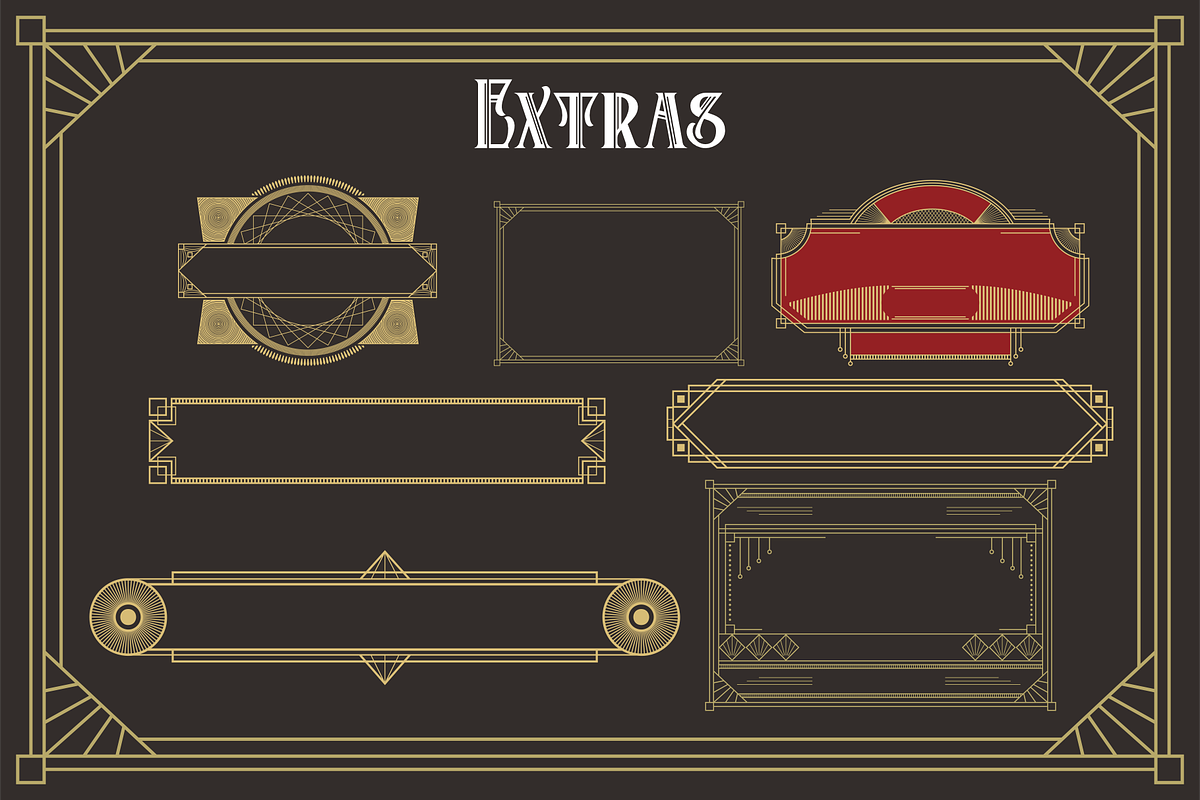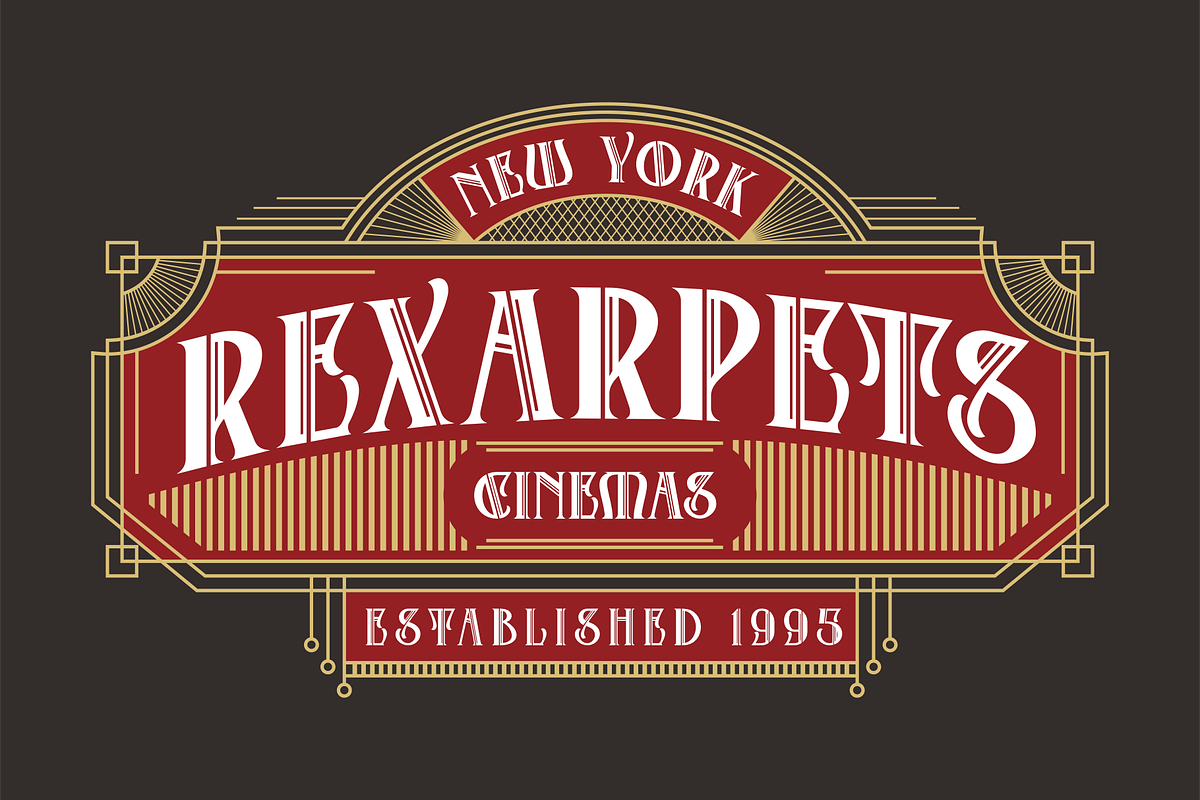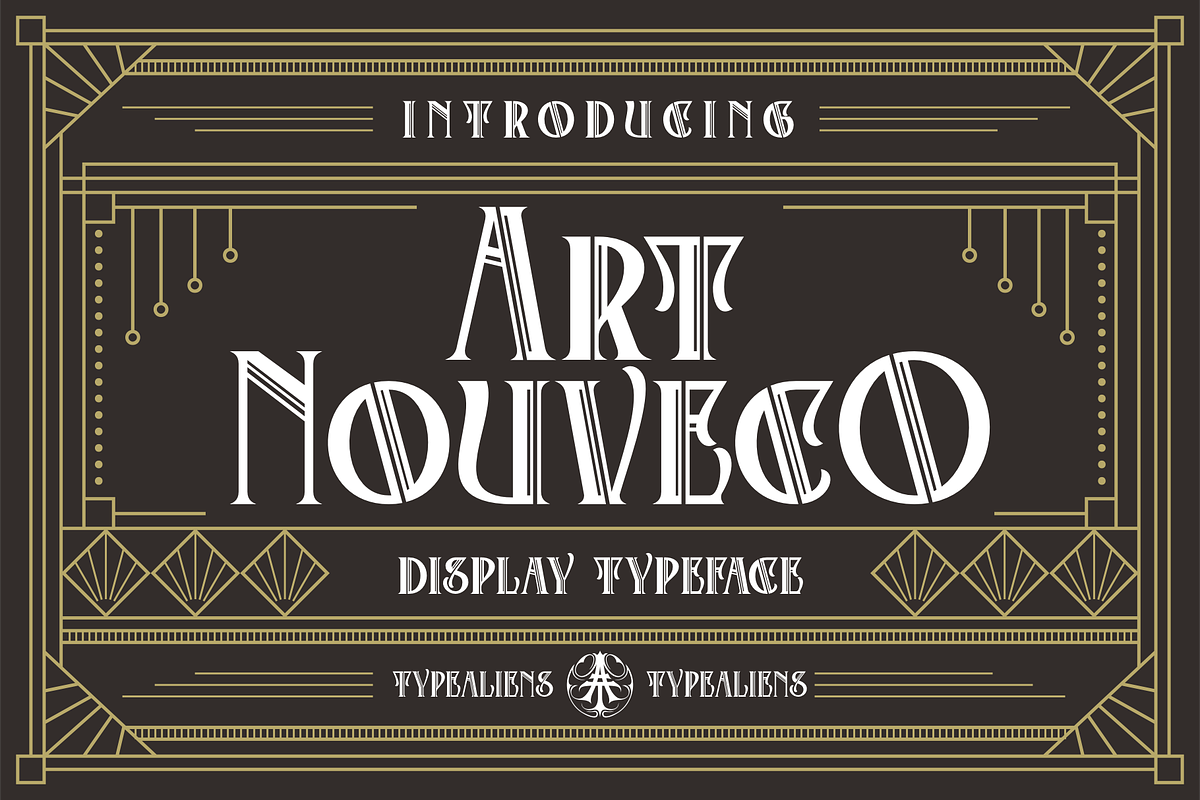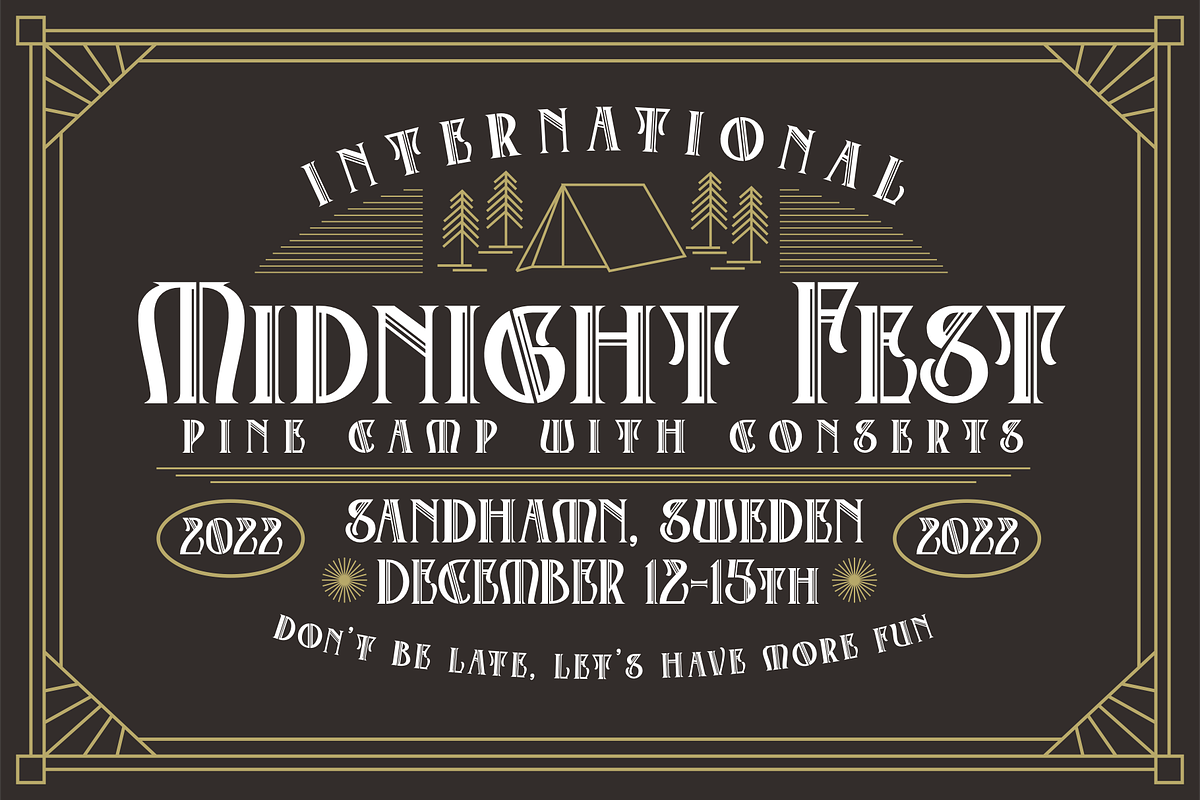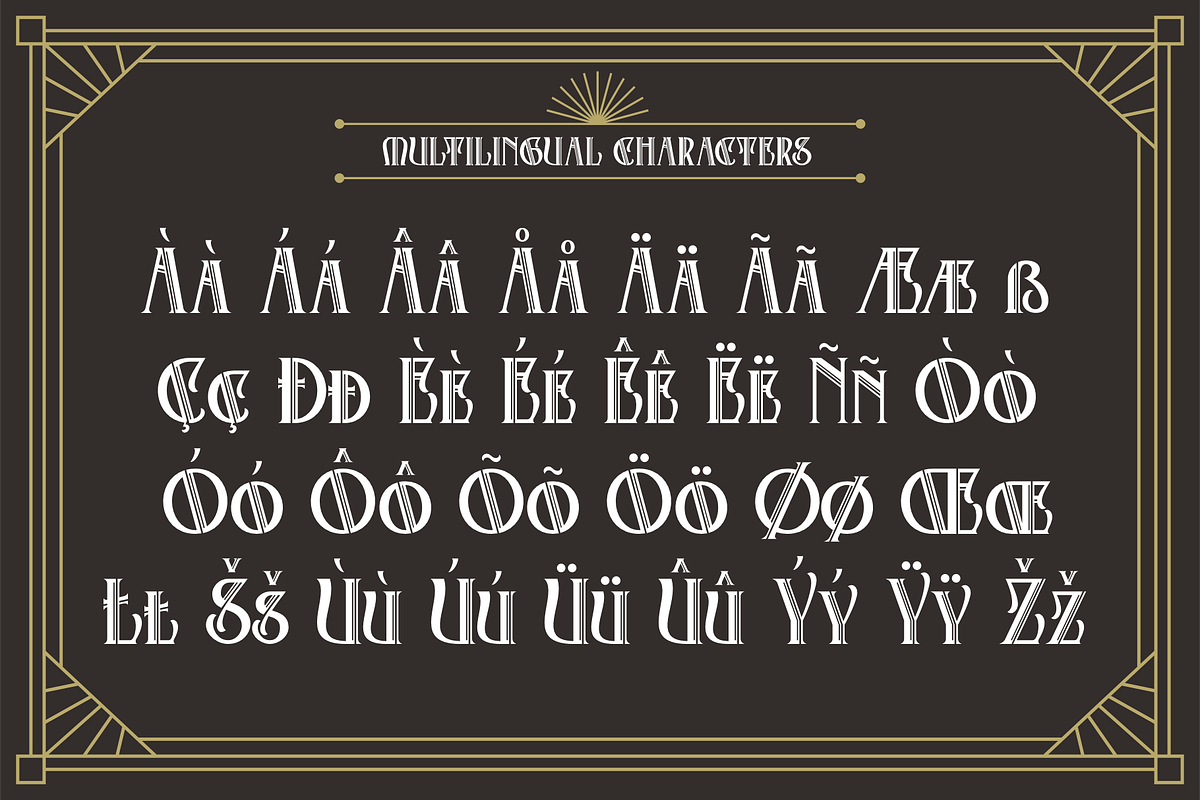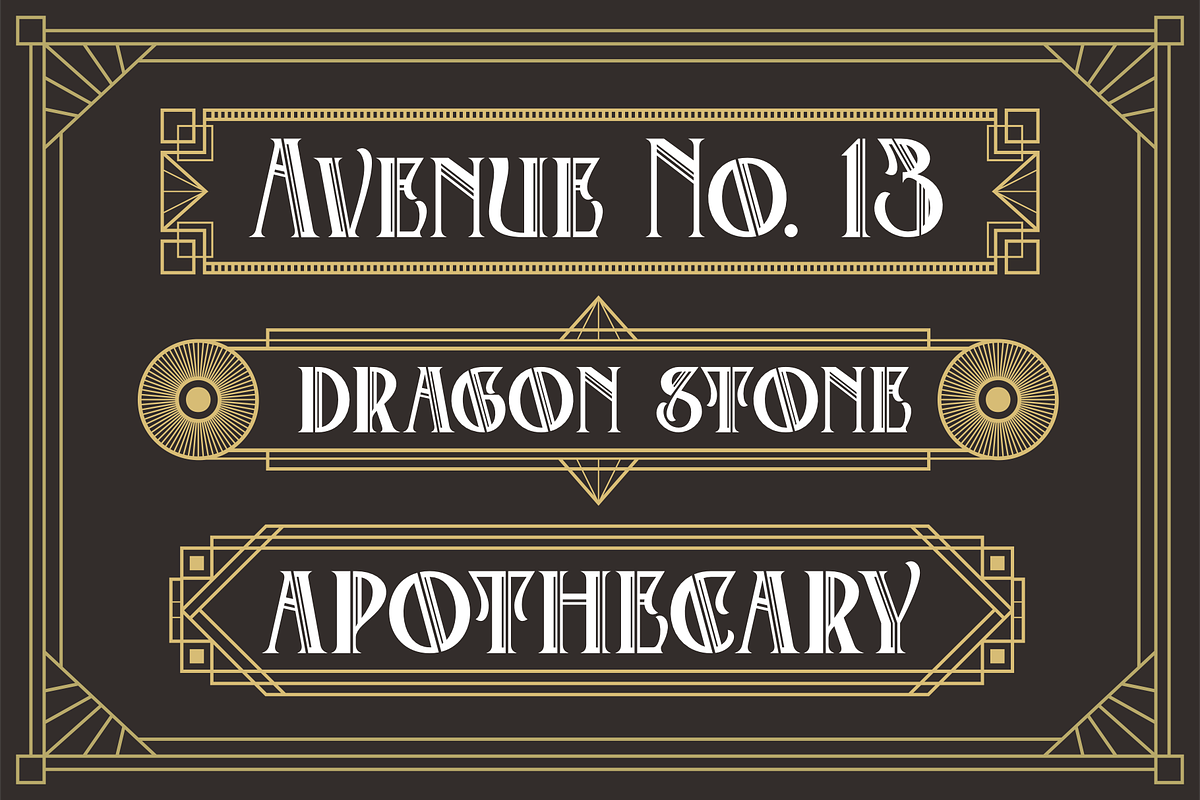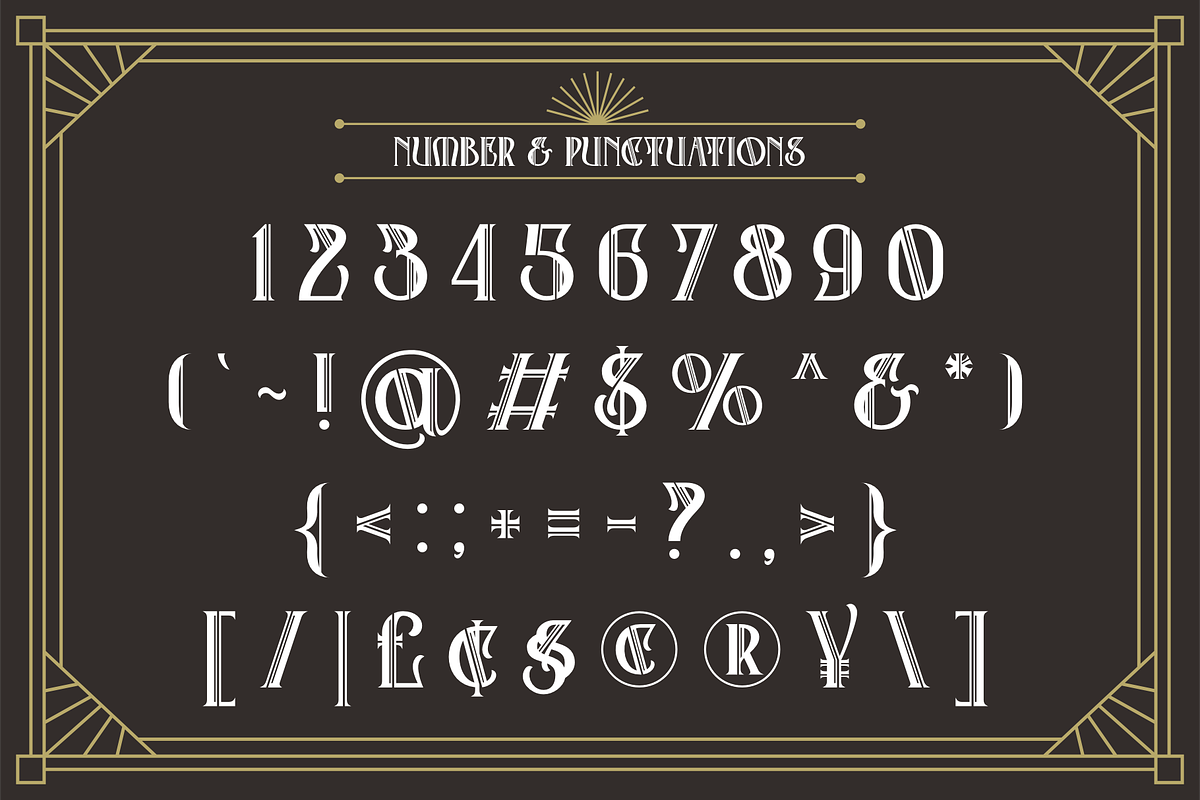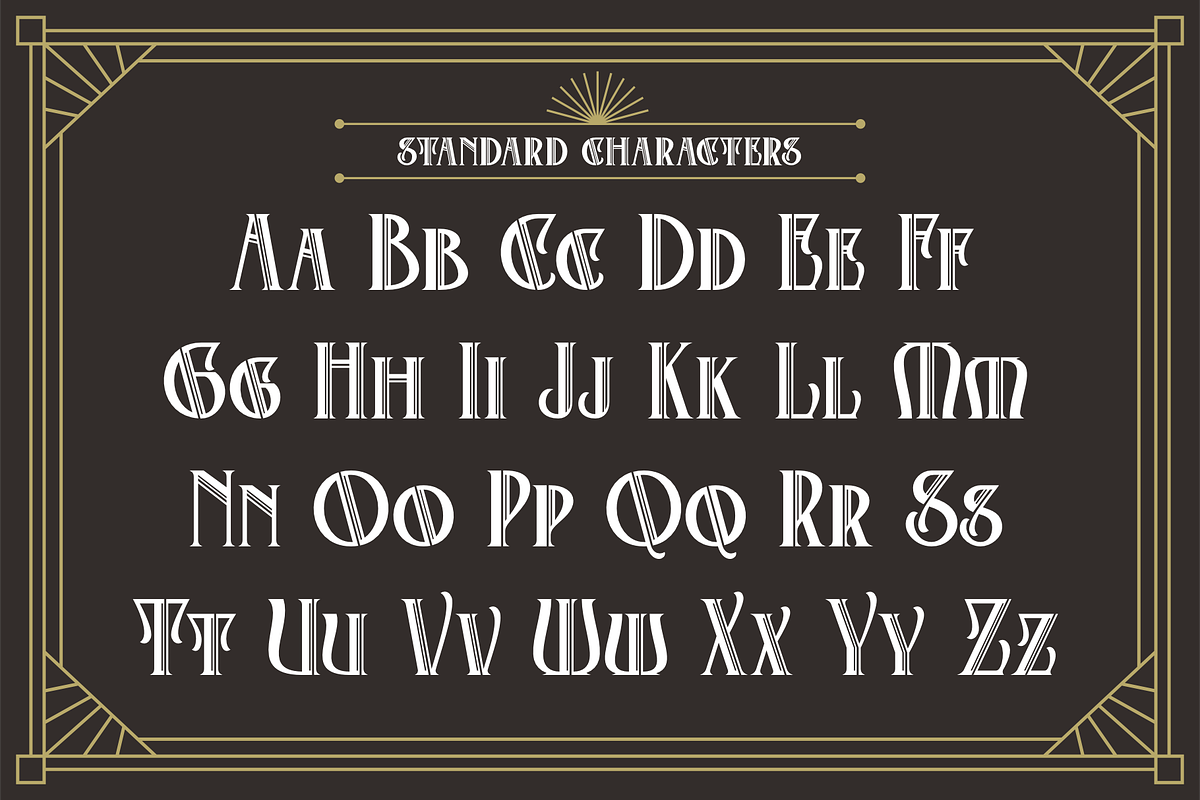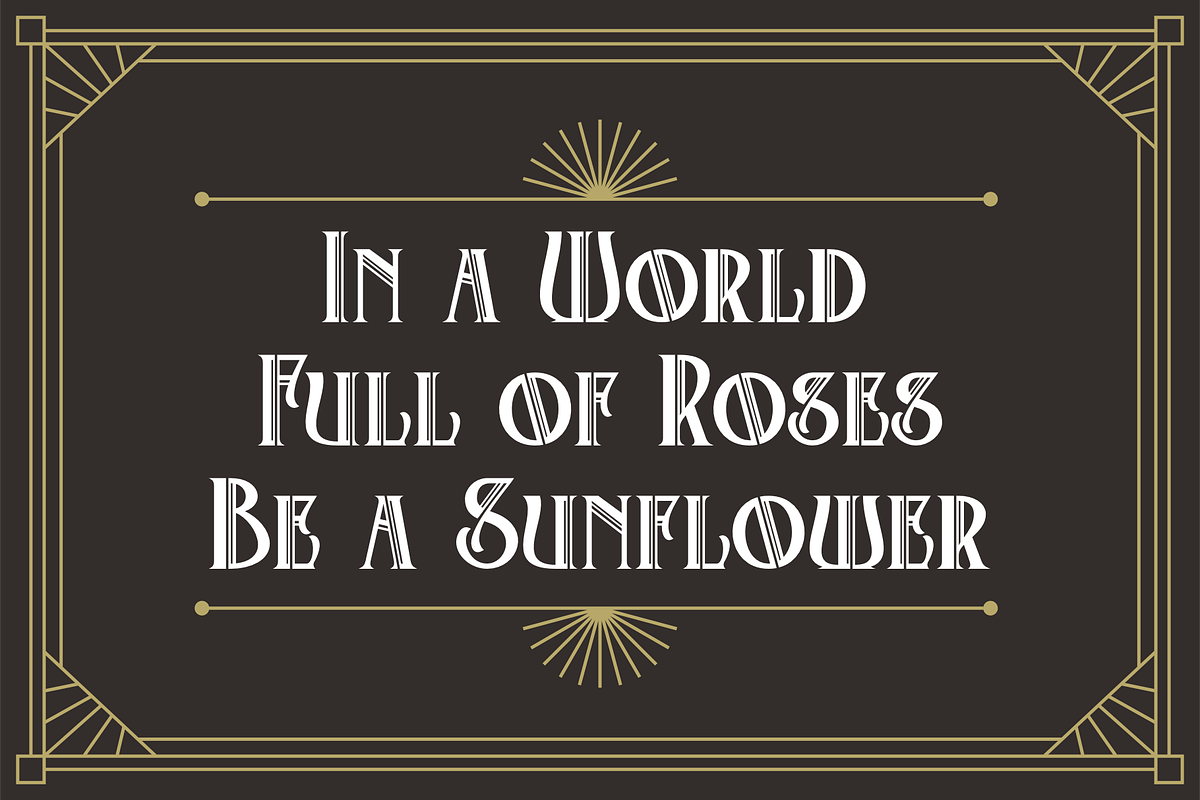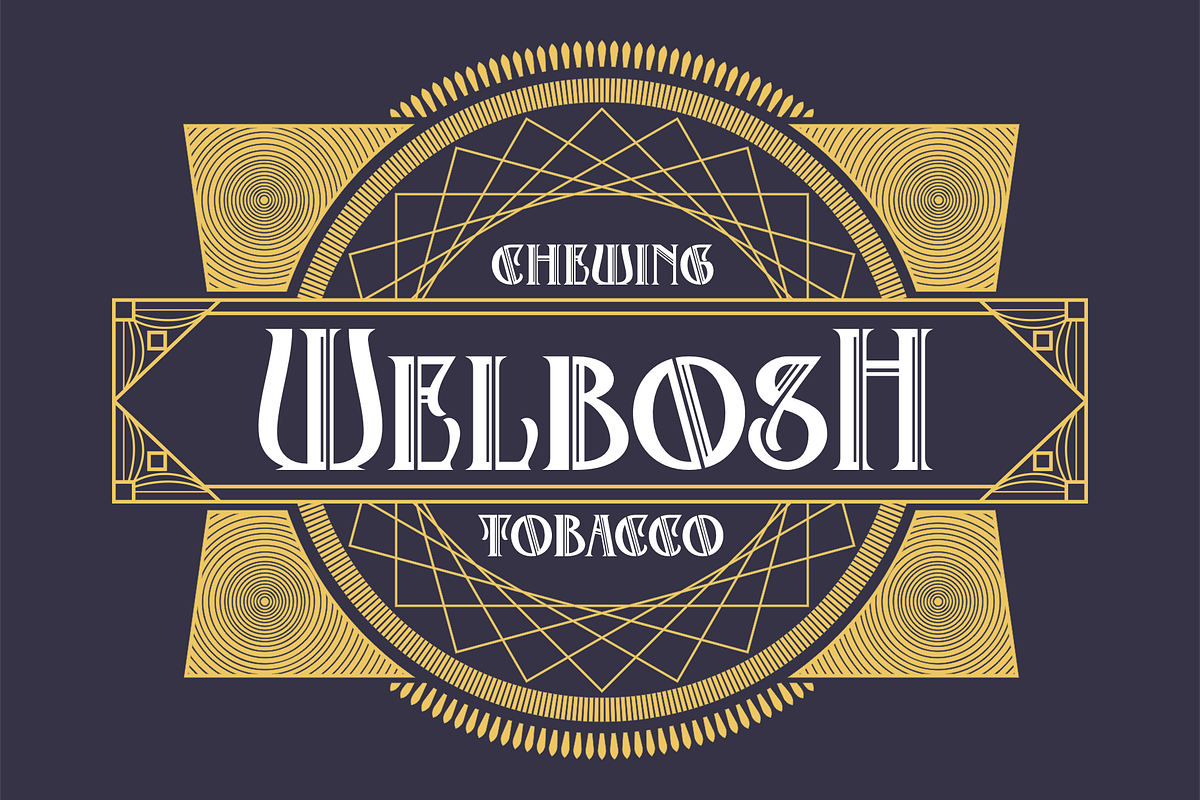
Art Nouveco
ART NOUVECO
Art Nouveco is a cross between art nouveau and art deco fonts, this font will become a new and interesting trend to explore in a design, elegant art nouveau is made a little more masculine due to the influence of art deco, resulting in a slightly elegant but elegant font. Fonts that still match the art deco style but have a slight touch of grace, will be suitable for classic but elegant designs.